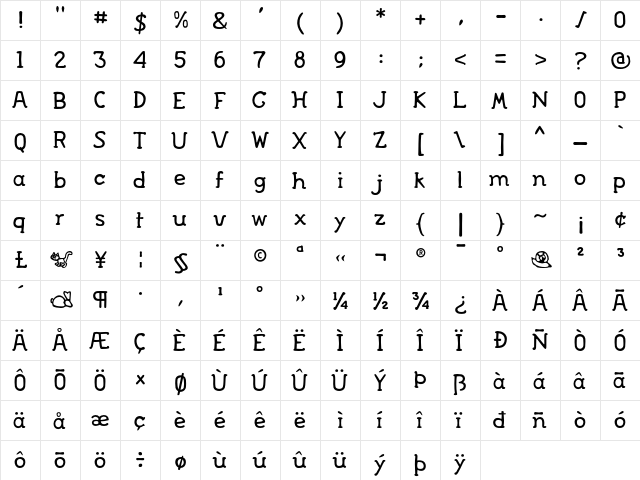
FontSoupCatalan Regular
Design Context for FontSoupCatalan Typeface
FontSoupCatalan is a composed and adaptable typeface that performs quietly and consistently across a wide range of design contexts.